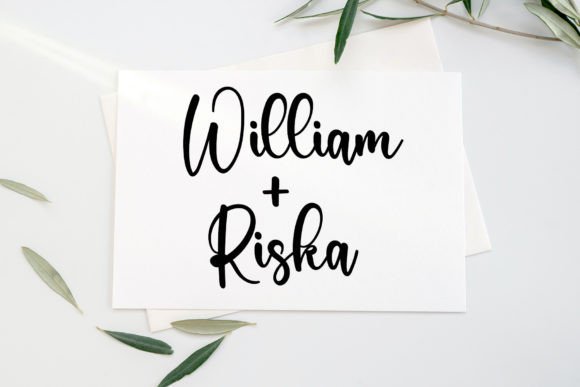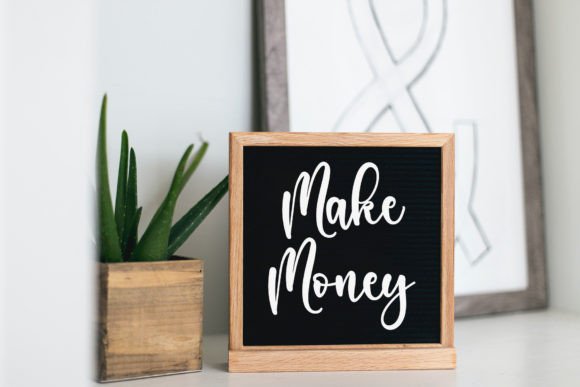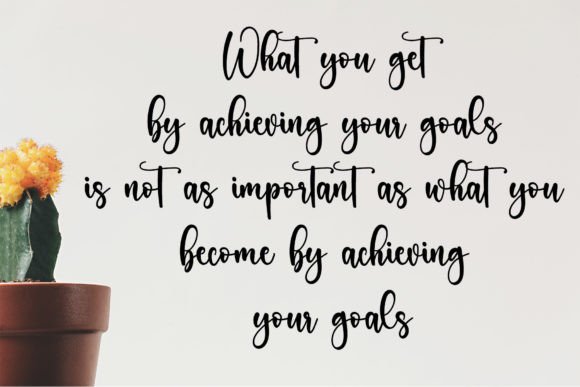
Introduction to Ornating Font
As designers, we’ve all been there – staring at a blank page, waiting for the perfect font to bring our creative project to life. And then, it happens – a spark of inspiration strikes, and we stumble upon the perfect match. For those who’ve been searching for a stylish and modern handwritten font to elevate their designs, look no further than the Ornating Font. This versatile font is designed to add a touch of happiness to everything from greeting cards to headlines, branding, and packaging.
What sets Ornating Font apart is its high-quality design and transparent background, making it a valuable resource for designers. With its PUA encoding, you can easily access all the amazing glyphs and ligatures, giving you the freedom to get creative. And the best part? You can download it for free, making it an essential addition to your design arsenal.
Key Features of Ornating Font
- High-quality, unique designs perfect for creative projects requiring a touch of elegance.
Honest Review: Ornating Font
As a designer, I’m always on the lookout for high-quality design resources to elevate my creative projects. Ornating Font has been a recent addition to my toolkit, and I’m excited to share my thoughts on this versatile font.
- ✨ Unique and intricate designs that add an extra layer of depth to any project
- ✨ Excellent for creating a sophisticated, high-end look in branding and marketing materials
- ✨ Offers a range of styles and variations to suit different design needs
- ⚠️ Limited availability in non-English languages, which may be a concern for global design projects
- ⚠️ Not suitable for projects that require a transparent background, as the font may not render correctly
Overall, I’m impressed with Ornating Font’s potential as a design resource. While it may not be perfect, its unique style and high-quality design make it a valuable addition to any designer’s toolkit. Plus, it’s free to download, which is a definite bonus!
With a little creativity and experimentation, I believe Ornating Font can be a game-changer for designers looking to add a touch of elegance to their projects. I’d definitely recommend giving it a try, especially for those working on high-end or creative projects.
How to Use Ornating Font
Ornating Font is a high-quality design resource that can add a touch of elegance to your creative projects. With a transparent background, this font is perfect for adding subtle texture and depth to your designs.
Tips for Getting the Most Out of Ornating Font
Here are a few tips for getting the most out of Ornating Font:
- Use Ornating Font in conjunction with other design elements, such as graphics and textures, to create a cohesive look.
- Experiment with different font sizes and colors to create a unique and eye-catching design.
- Use Ornating Font to add a touch of elegance to your designs, such as in business cards, invitations, and other formal documents.
Ornating Font is commonly used in a variety of creative projects, including:
- Business cards and stationery
- Invitations and event materials
- Brochures and